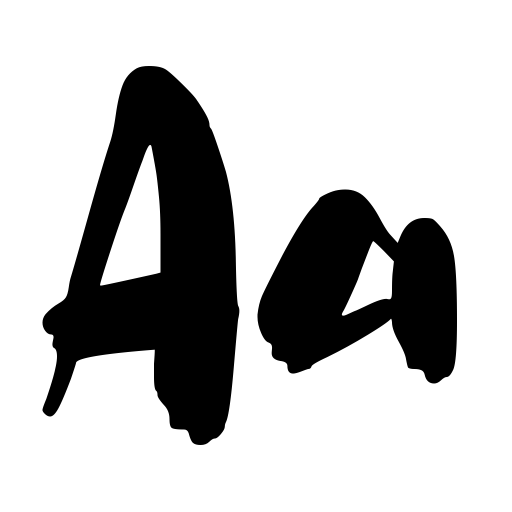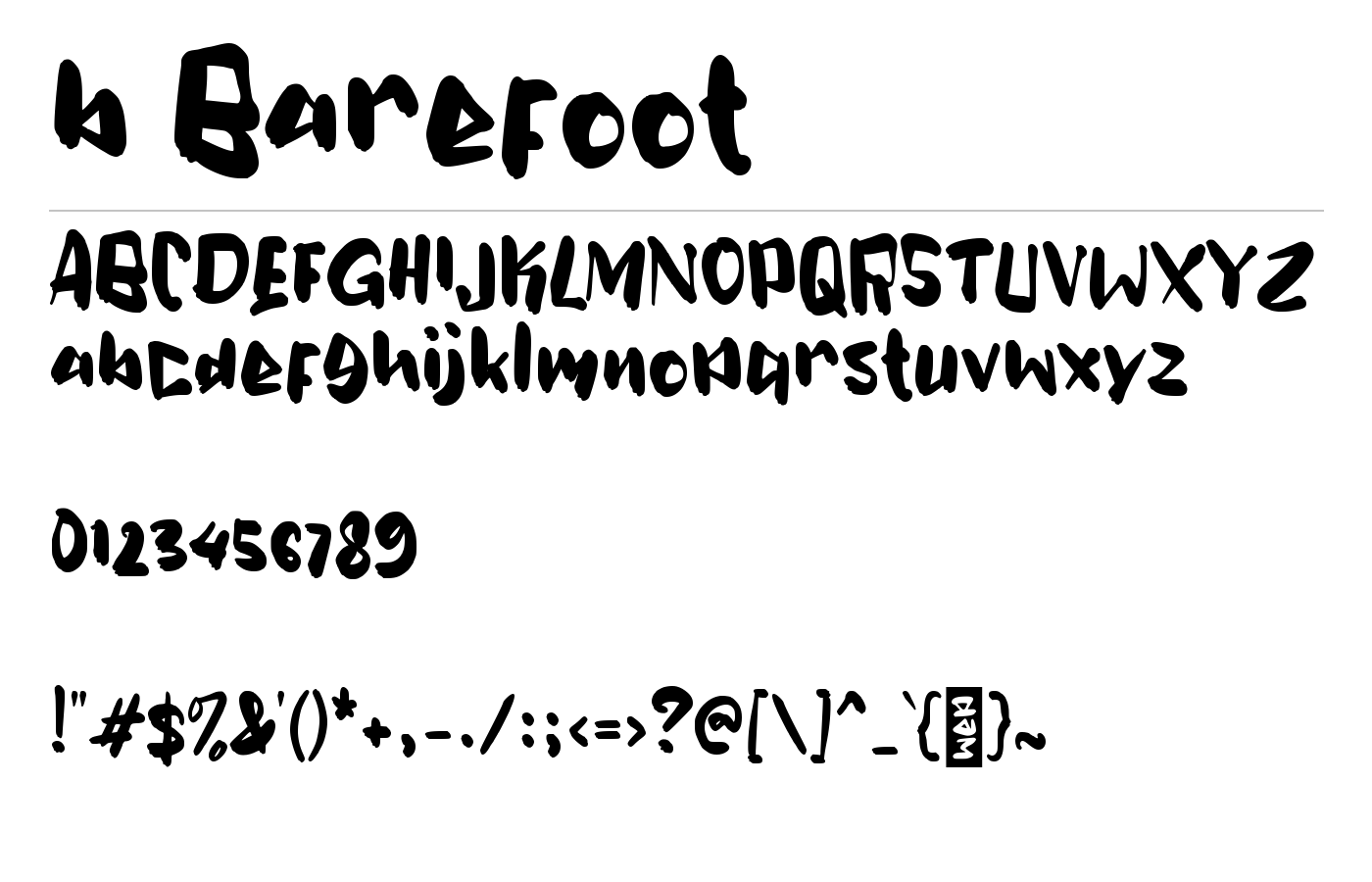
Barefoot is a playful, bold handwritten font with an informal and organic feel, characterized by irregular shapes and varied stroke widths that mimic a casual brush or marker style. Its wide letters and lively letterforms lend a fun, approachable personality, making it ideal for creative, youthful designs, packaging, posters, or any project needing a personal, hand-crafted touch. This font shines in headlines and display uses where a carefree, expressive vibe is desired.
b Barefoot Font